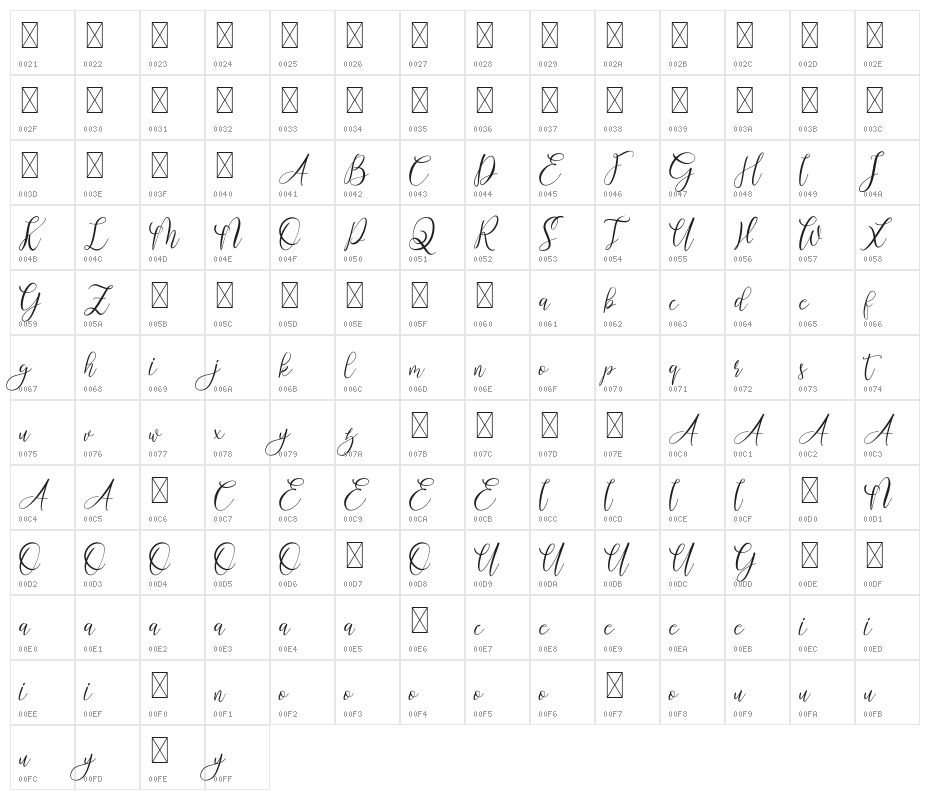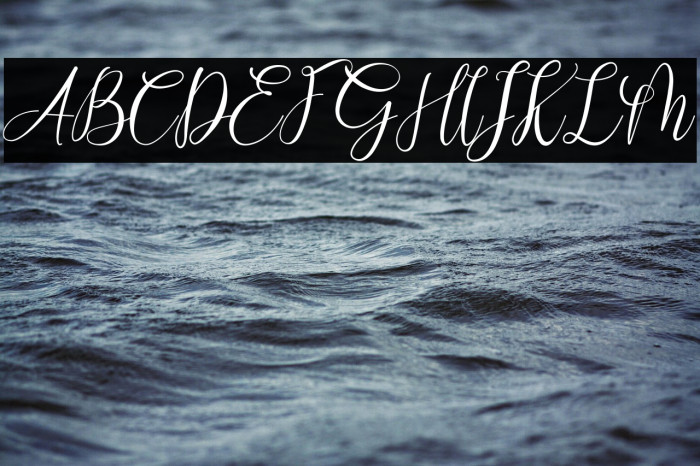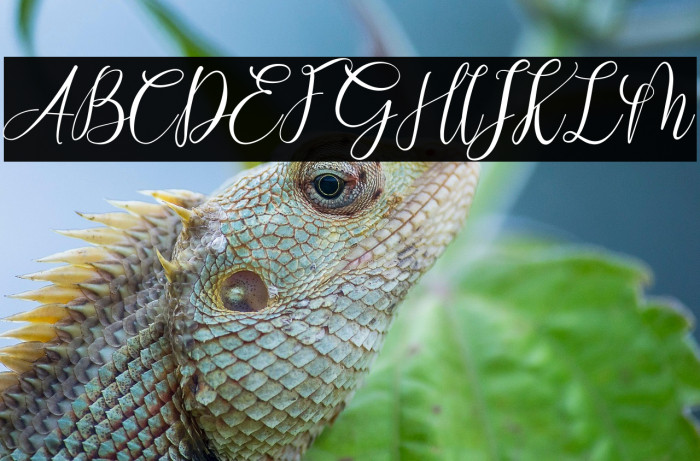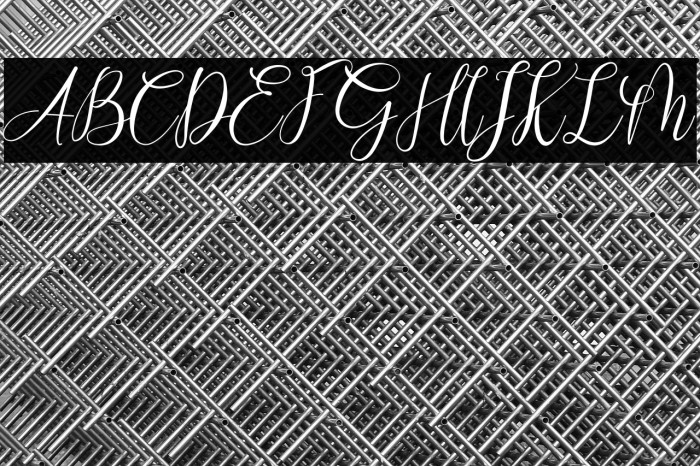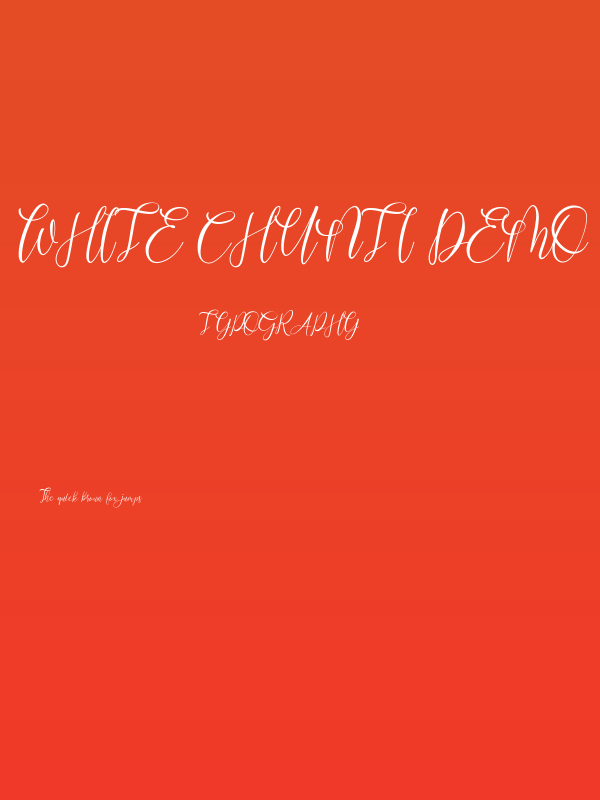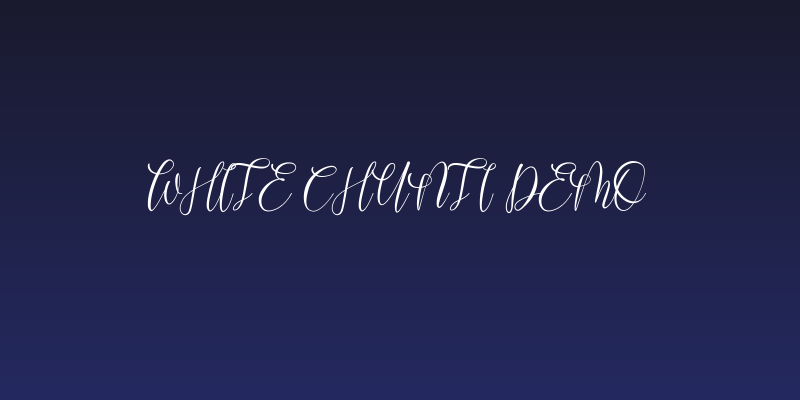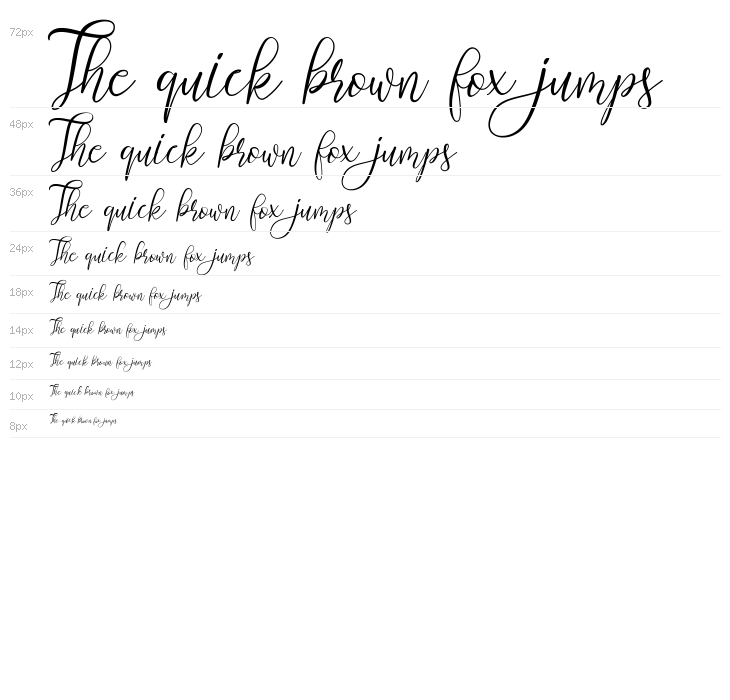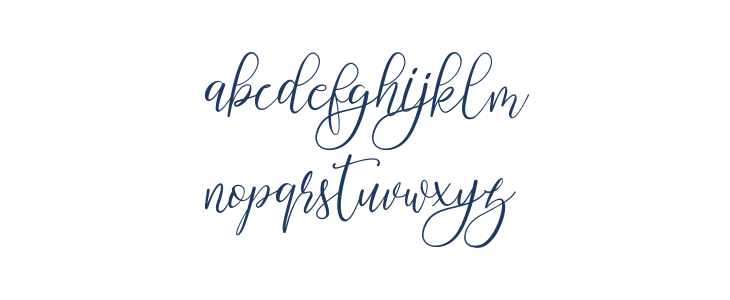
White Chunti Demo Font
White Chunti Demo Description
This font features an elegant and flowing script style, characterized by its cursive and interconnected letterforms. The uppercase letters are ornate with sweeping ascenders and descenders, giving a sense of sophistication and grace. The lowercase letters maintain a consistent flow, enhancing readability while preserving the decorative nature of the script. The font exhibits a high contrast in stroke thickness, with thin lines accentuating the curves and thicker strokes providing structure. The overall style is modern yet classic, suitable for projects that require a touch of elegance and formality.
| Overall Style | Modern, Classic |
| Proposed Projects | Ideal for wedding invitations, elegant branding, greeting cards, and upscale packaging designs. |